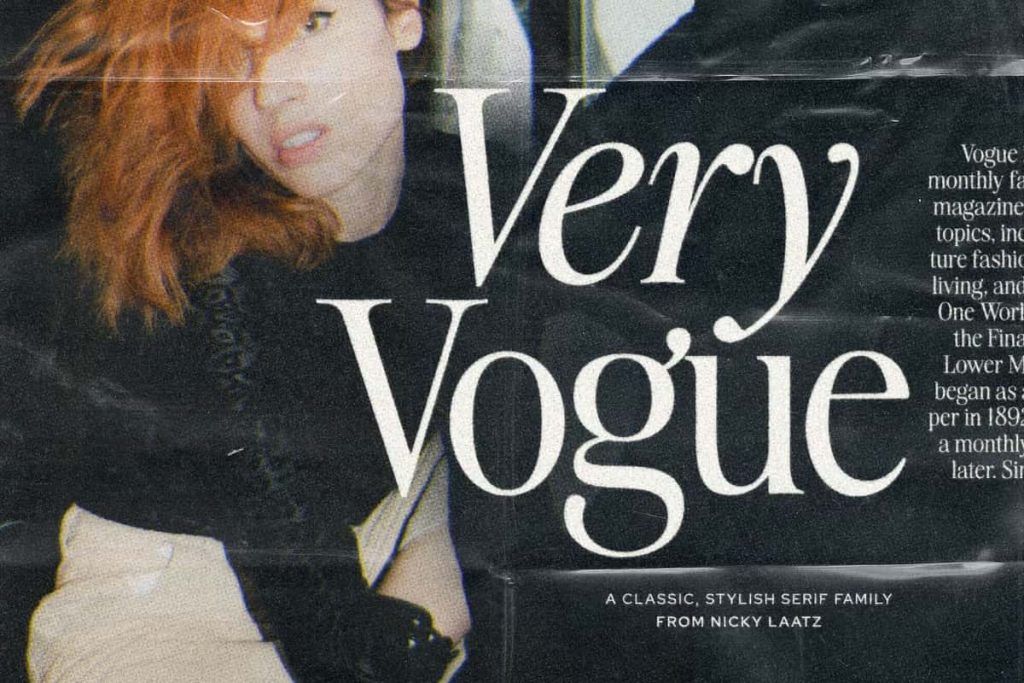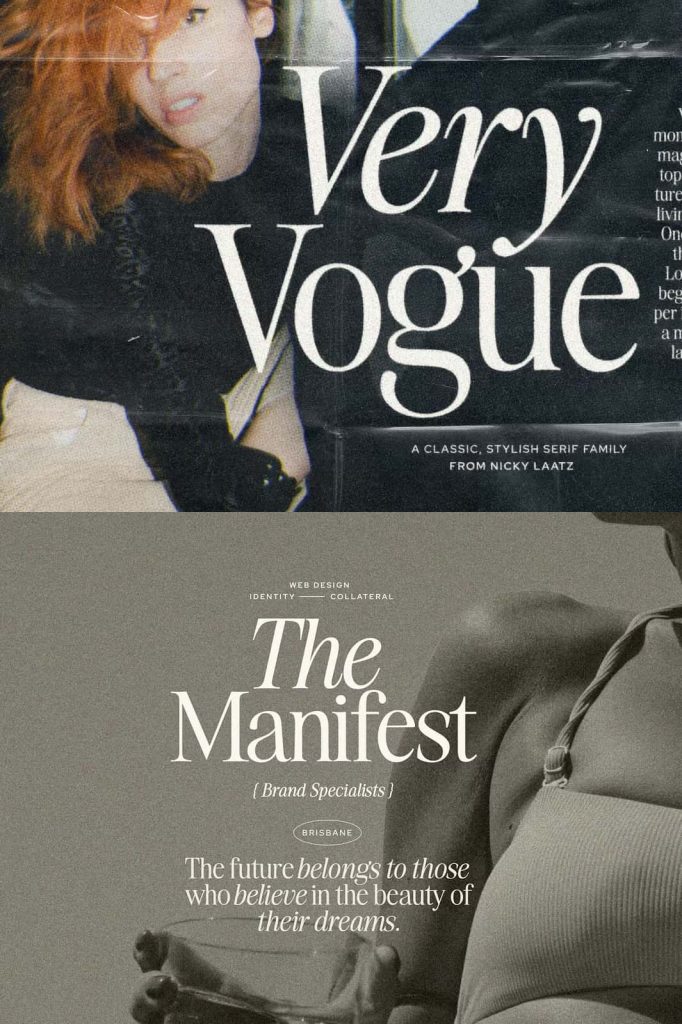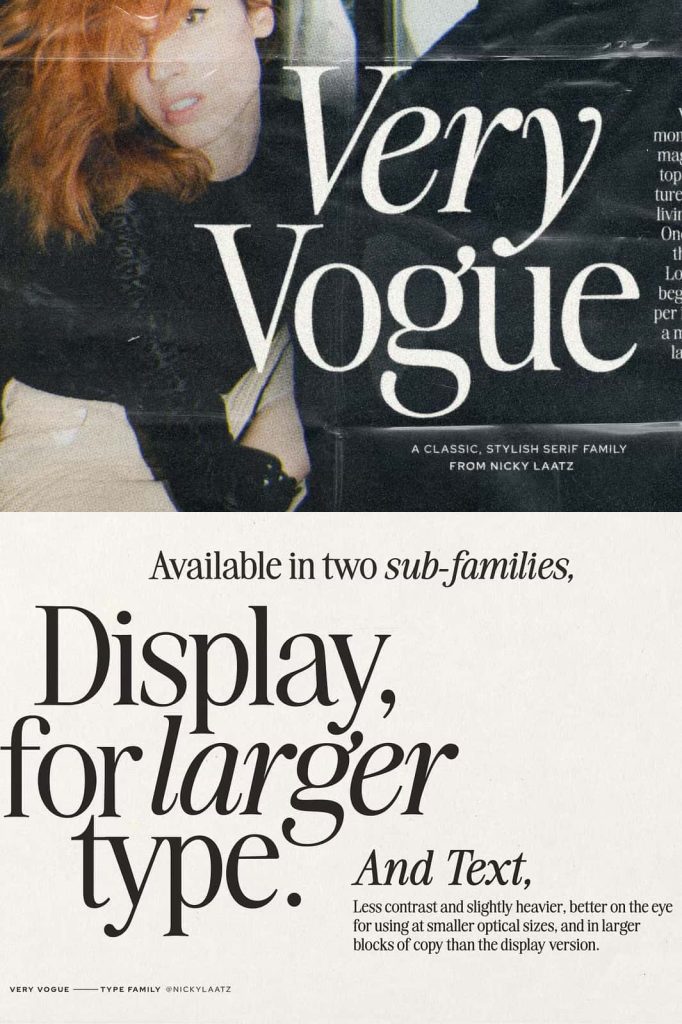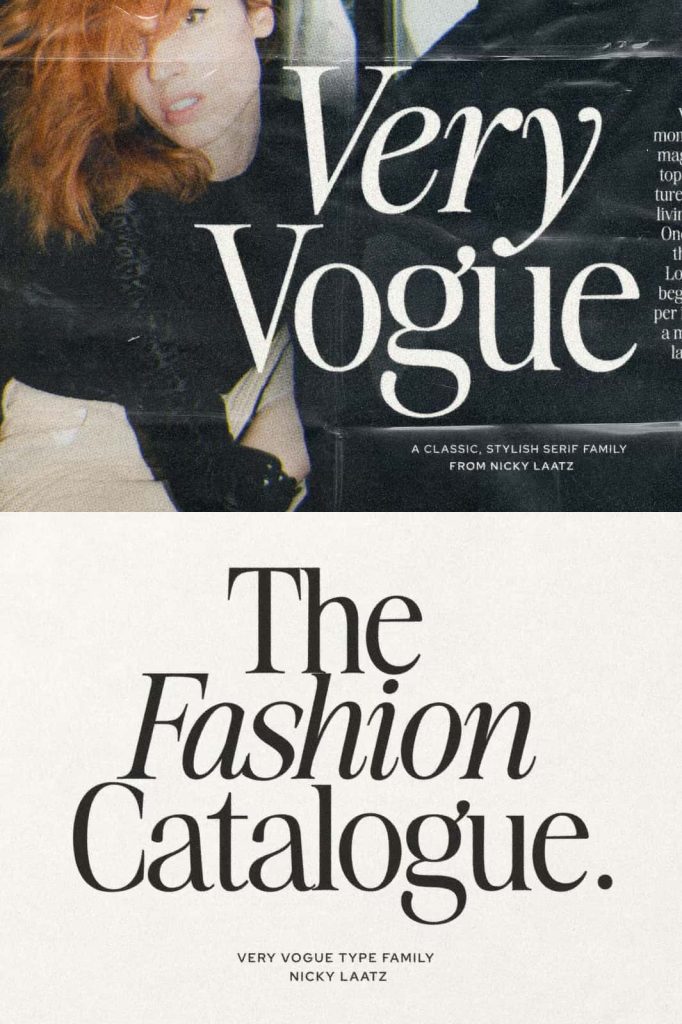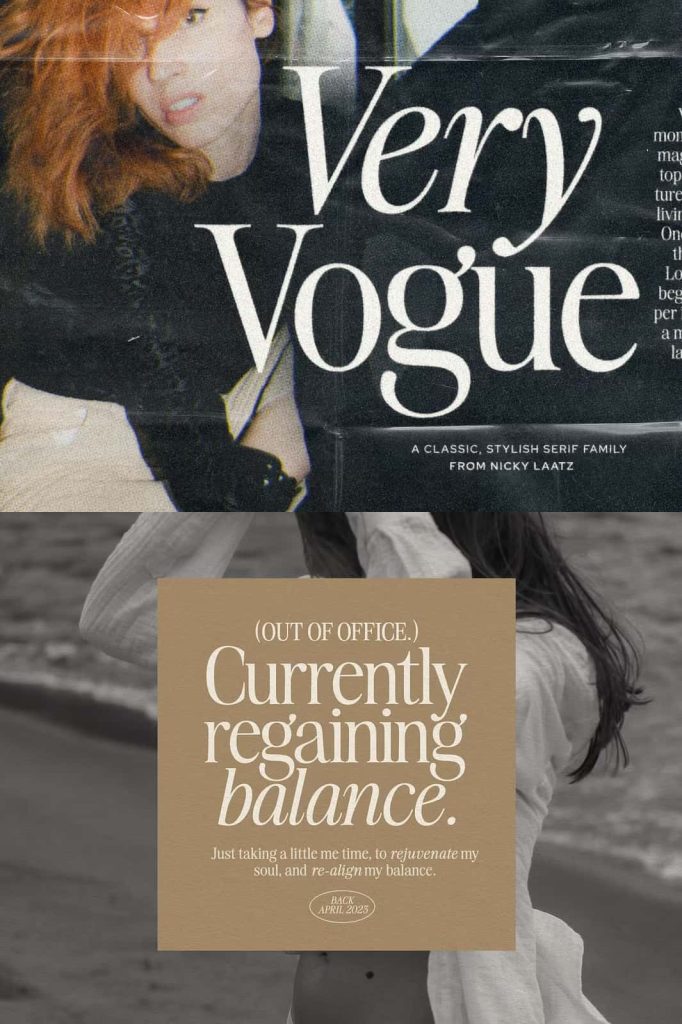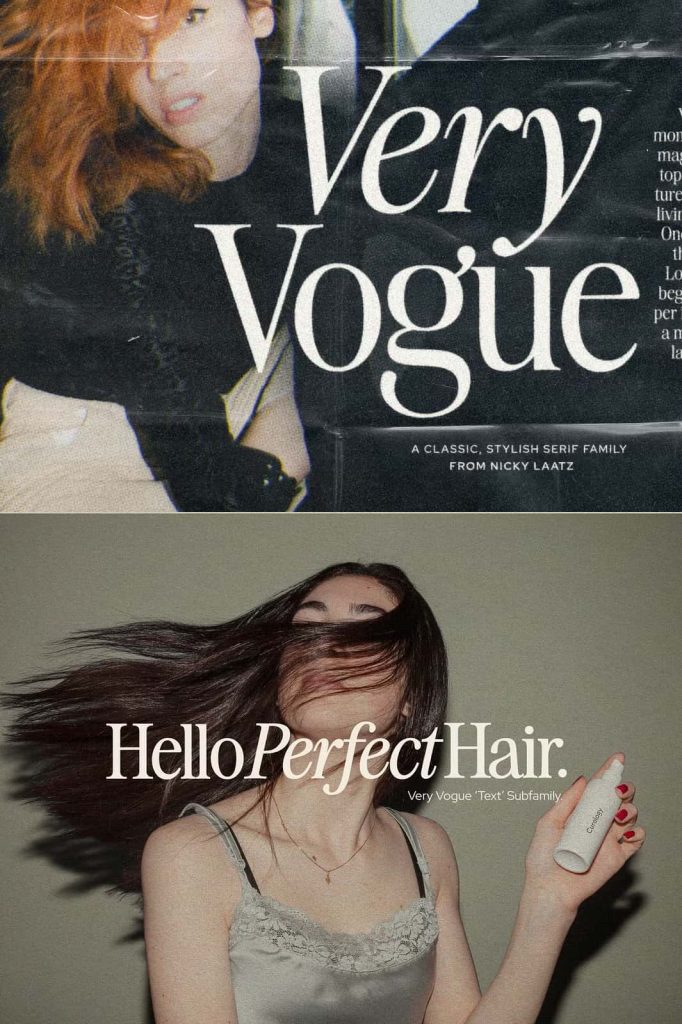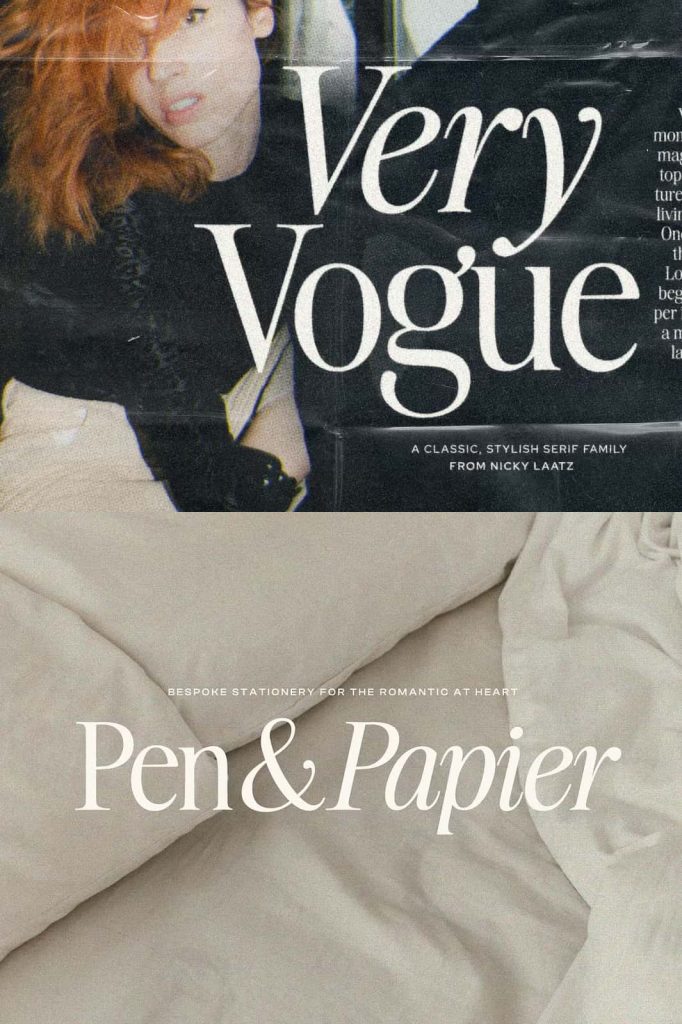
Based on glamourous fashion magazines from the 80’s and beyond and dripping with class and pizazz – say hello to The new ‘Very Vogue’ Serif family!
Classic and refined, and the epitome of style, Very Vogue Serif Family has soft curves and attention to detail make Very Vogue Display Serif a must for any projects requiring that upper level of class. Truly versatile – She also has a tomboy side – with her twin : The heavier subfamily :